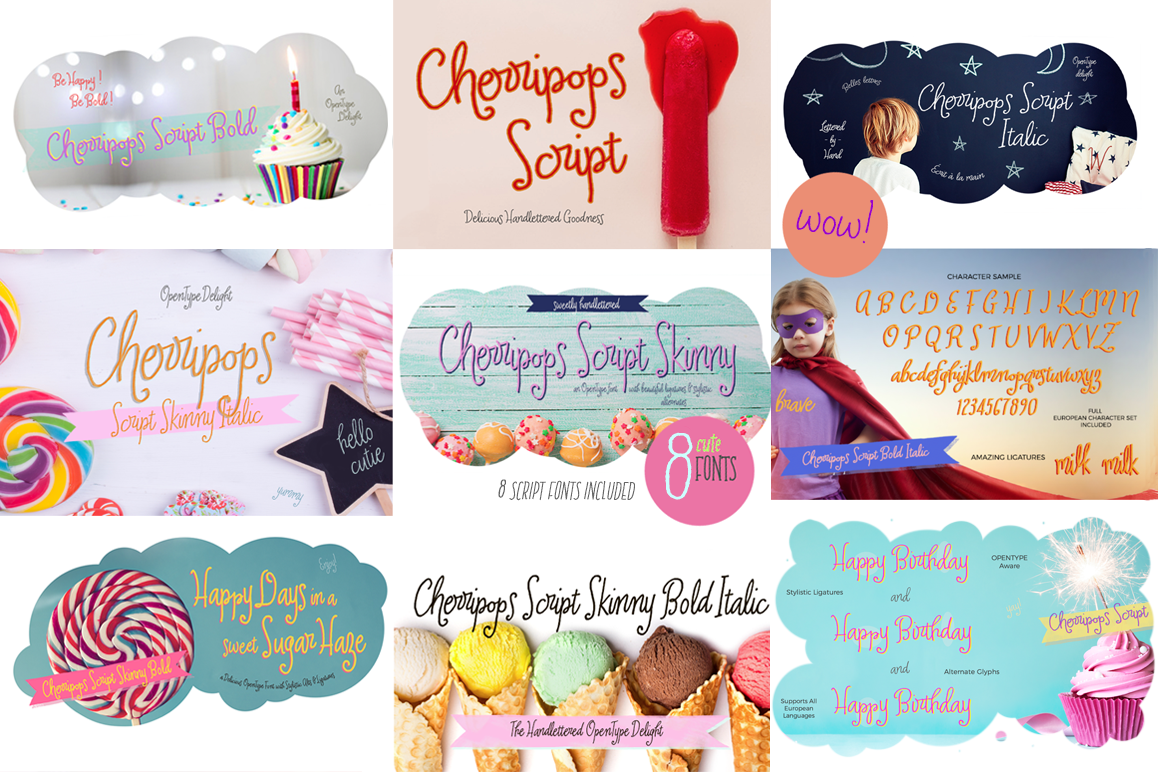
Cherripops Scripts - 8 pack
Be Happy, Be you! Express yourself with Cherripops!  This OpenType set of 8 sweet & juicy fonts contains Cherripops Script, Script Bold, Script Italic, Script Bold Italic, Script Skinny, Script Skinny Bold, Script Skinny Italic and Script Skinny Bold Italic.
Perfect for quotes, t-shirts, book covers, posters, packaging projects, food, apparel, magazines and with such a wide variety of styles, Cherripops makes the perfect font system for film, television, marketing, advertising and websites.